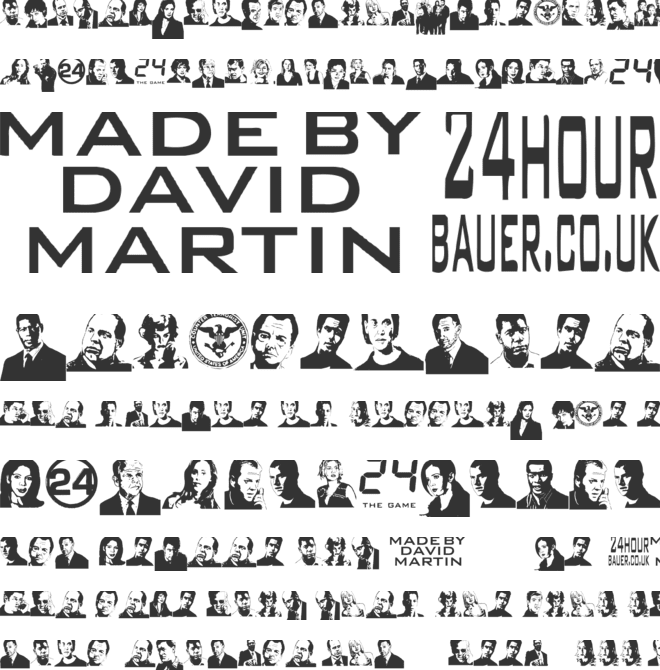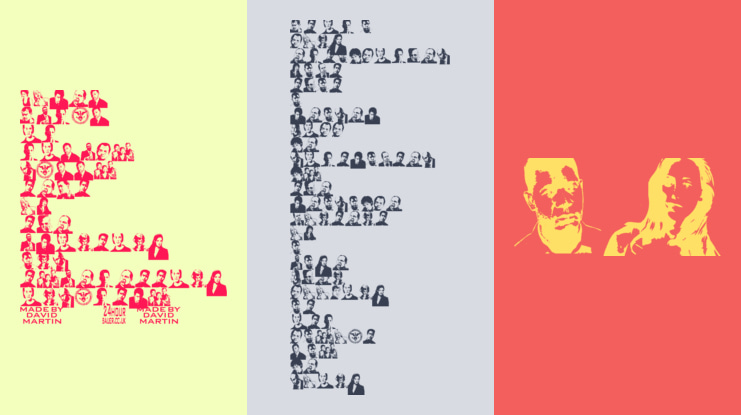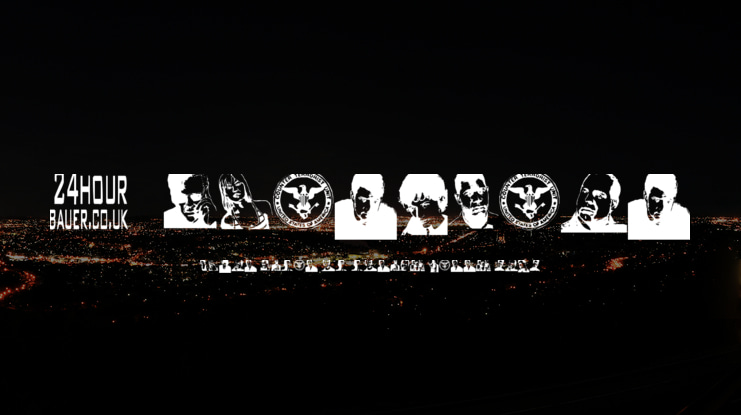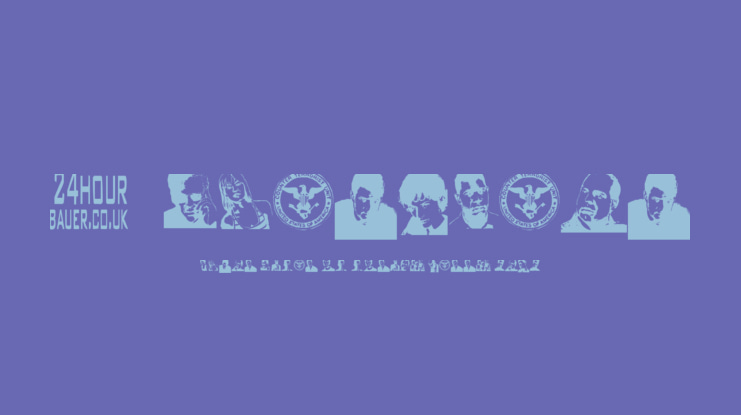
24hourbauer Font
Features pictures and logos from 24 on both upper and lower case letters. You can go to a 24 website of the same name at www.24hourbauer.co.uk